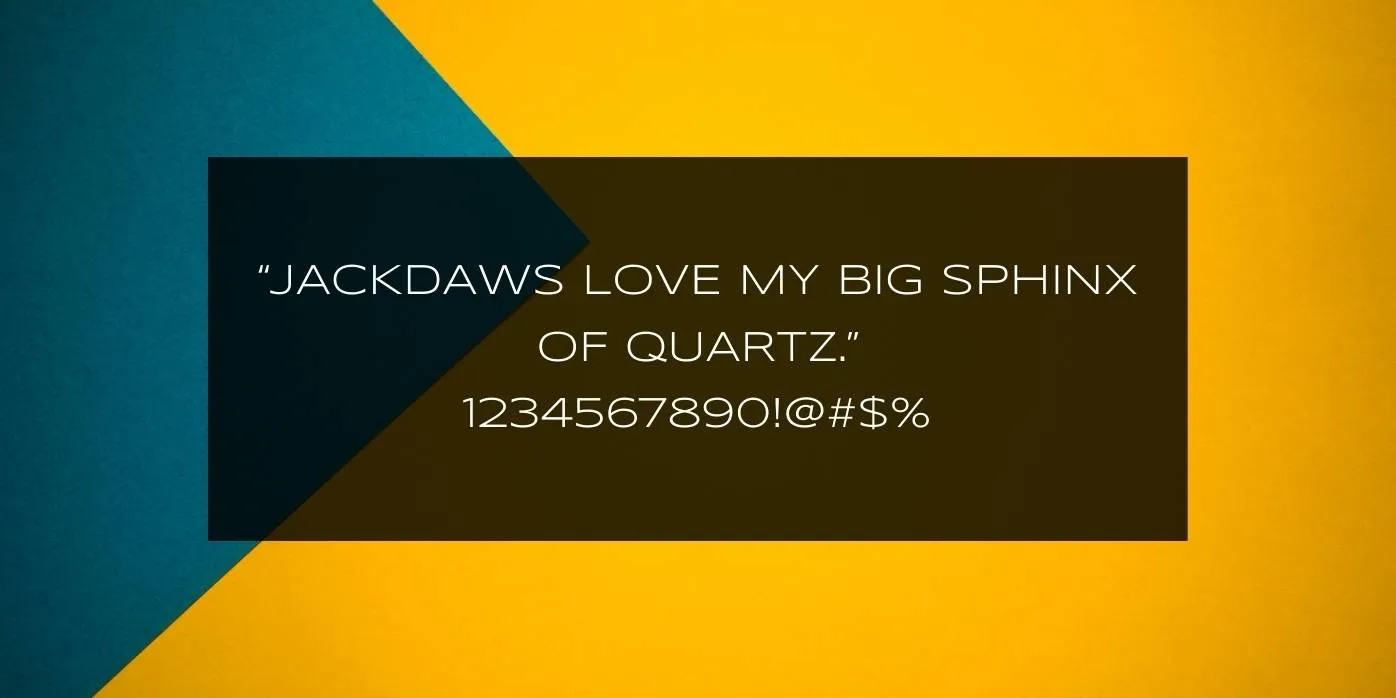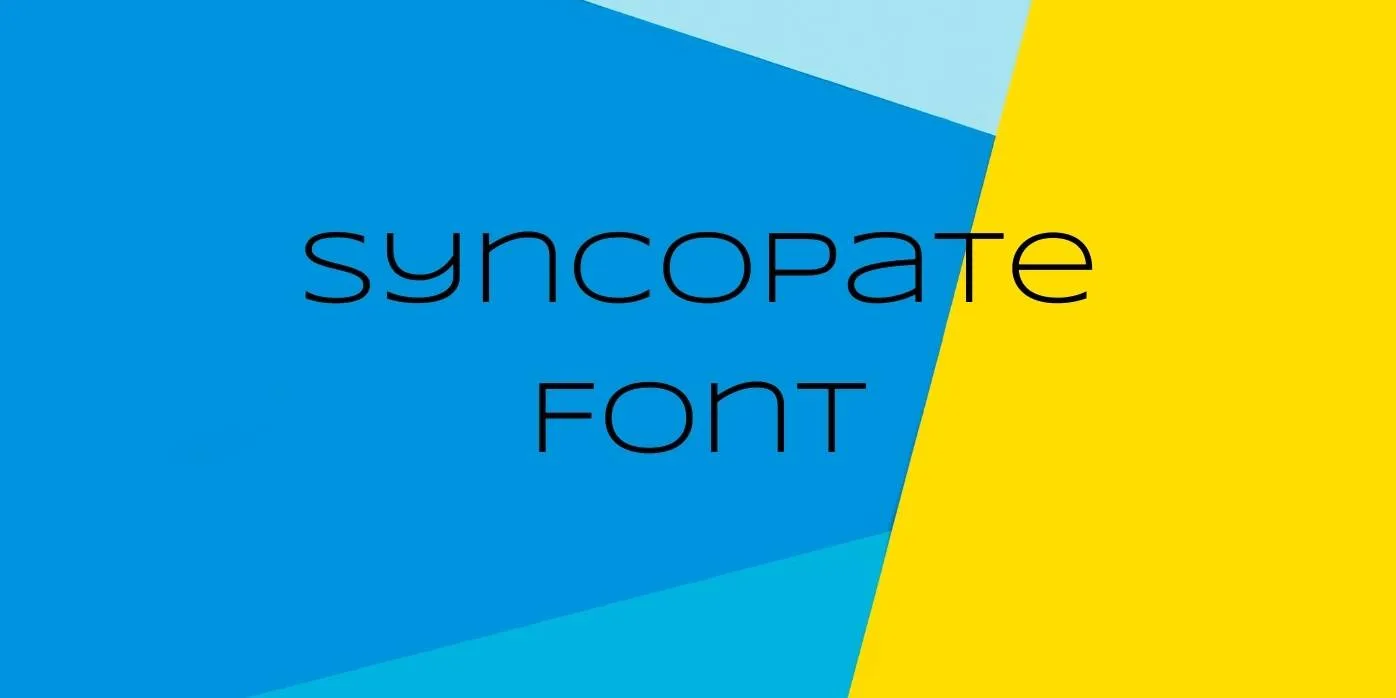
Syncopate Font
In this article, we present a marvelous typeface that is known by the name Syncopate Font. This family belongs to the category of sans serif font. This family was designed and shared by Astigmatic One Eye Typographic Institute.  The Syncopate font family is a contemporary typeface with a touch of vintage flair. The family includes 36 styles: 9 weights (from regular to Bold) in 3 widths (Normal, Condensed, and Extended), each with 6 variations Upright, Italic, Small Caps, Central European, Discretionary Ligatures, and Stylistic Sets.
You can also use exo demi bold font which is closest to this font family. The Syncopate Font Family comes in three different widths – normal, condensed, and extended – each in 9 different weights from thin to black. There are also 6 different versions of each weight – upright, italic, small caps, Central European, discretionary ligatures, and stylistic sets. This gives you a total of 324 different possibilities to choose from.